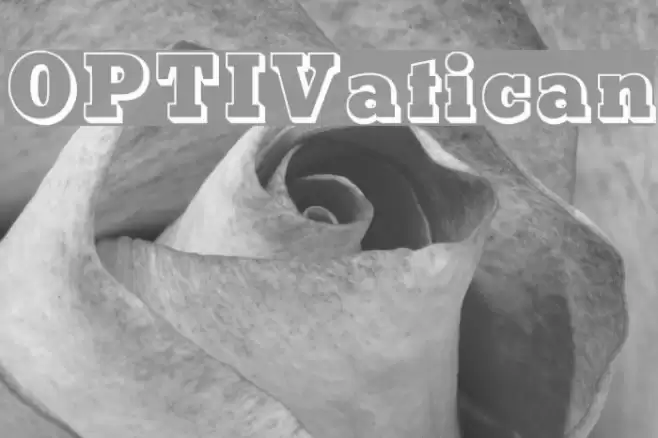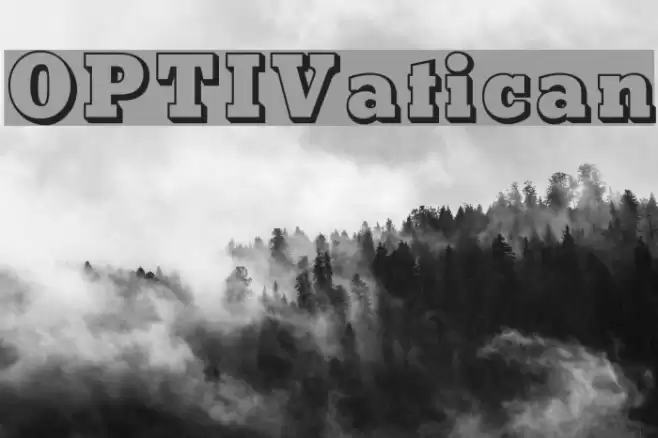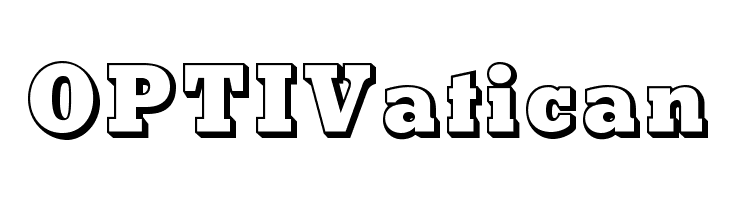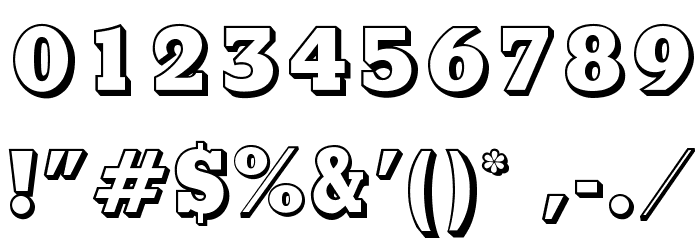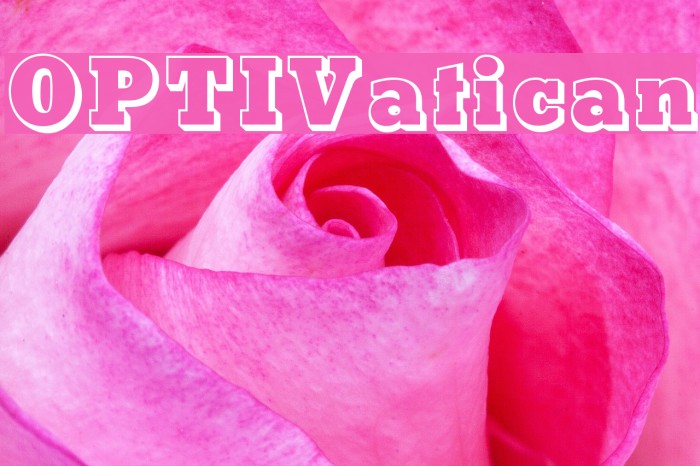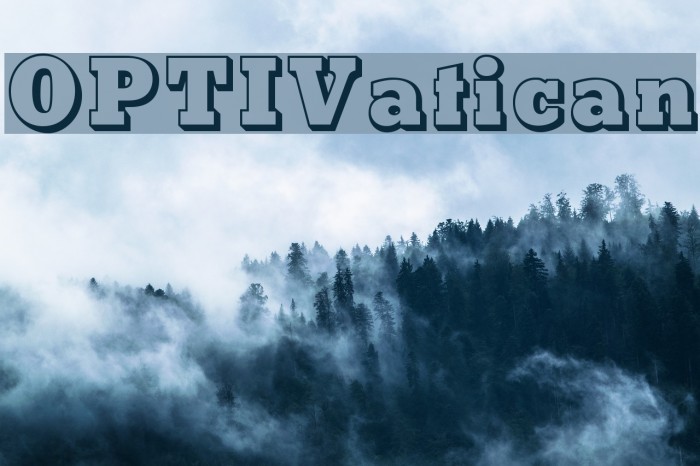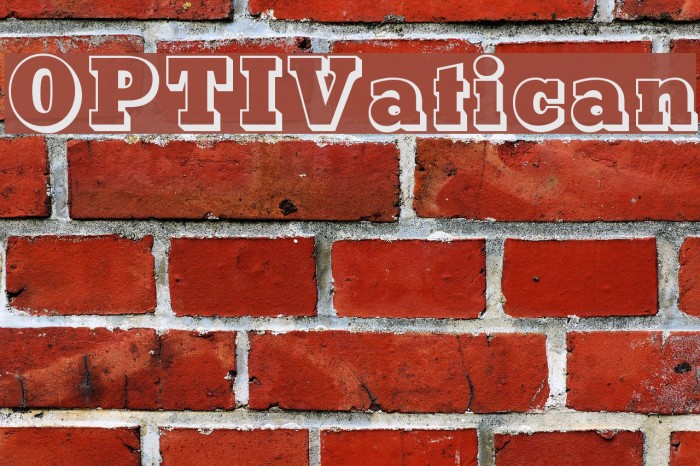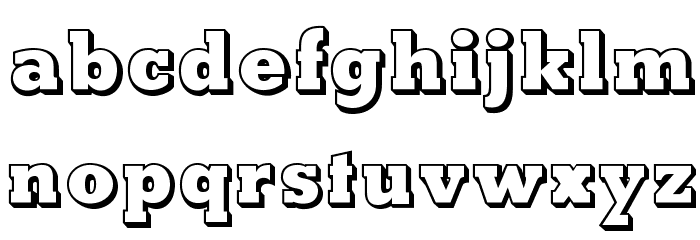
OPTIVatican Font
OPTIVatican Description
This font features bold, blocky characters with a strong presence, ideal for making a statement. The letters are outlined, giving them a three-dimensional effect that adds depth and interest. The uppercase and lowercase letters maintain a consistent style, with rounded edges and a slightly condensed form. The numerals and special characters follow the same bold and outlined design, ensuring uniformity across all text elements. This font's distinct style makes it suitable for attention-grabbing headlines and titles.
Bold, outlined font with a three-dimensional effect from Uncategorized fonts.
- Proposed Projects: Ideal for posters, headlines, logos, and any design requiring a strong visual impact.